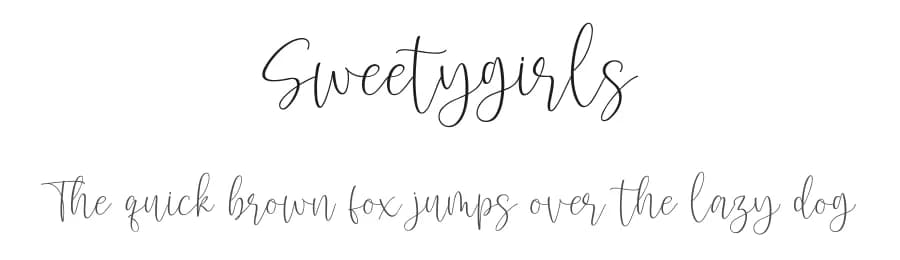
About Sweetygirls Font
Sweetygirls Specifications
| Font Family | Sweetygirls |
| Full Name | Sweetygirls |
| Glyph Count | 396 glyphs |
| PostScript Name | Sweetygirls |
| Designer | Rizaldi Wandani |
Sweetygirls Font is a script font that shines as a display or heading face. Pair it with a clean sans-serif or serif font for body text β the contrast creates a clear hierarchy while the two styles stay balanced and easy to read.
Sweetygirls Font
by Faqih Fawaji